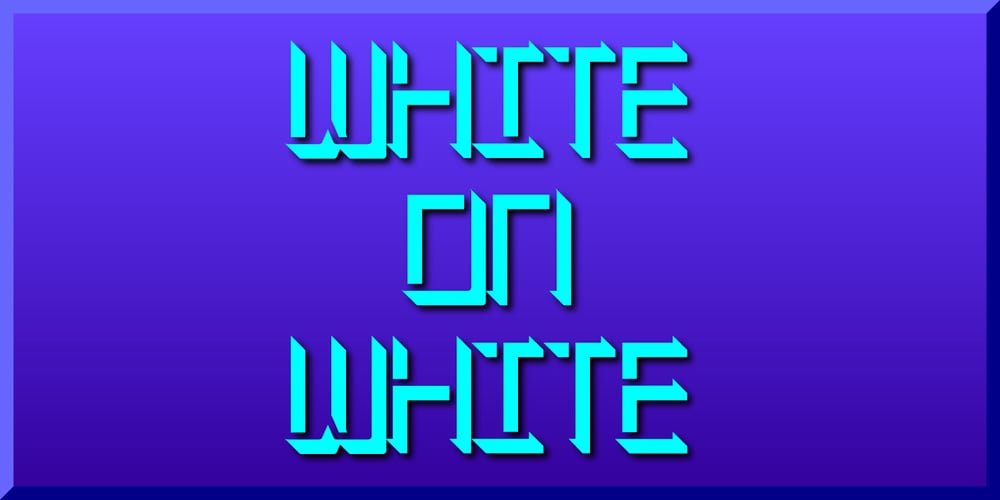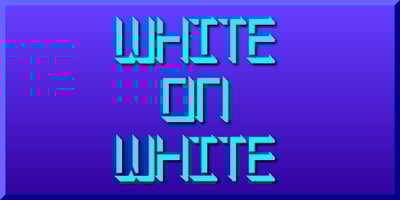
White On White Font Family was designed by Gerald Gallo and published by Gerald Gallo. White On White contains 1 styles and family package options. White On White is a display font not intended for text use. It was designed specifically for display, headline, logotype, branding, and similar applications. White On White has an uppercase alphabet, numbers, and punctuation. For convenience, the uppercase alphabet is repeated under the lowercase keys. Only the portions of the characters that are outlined by the 3D-simulated depth are visible.